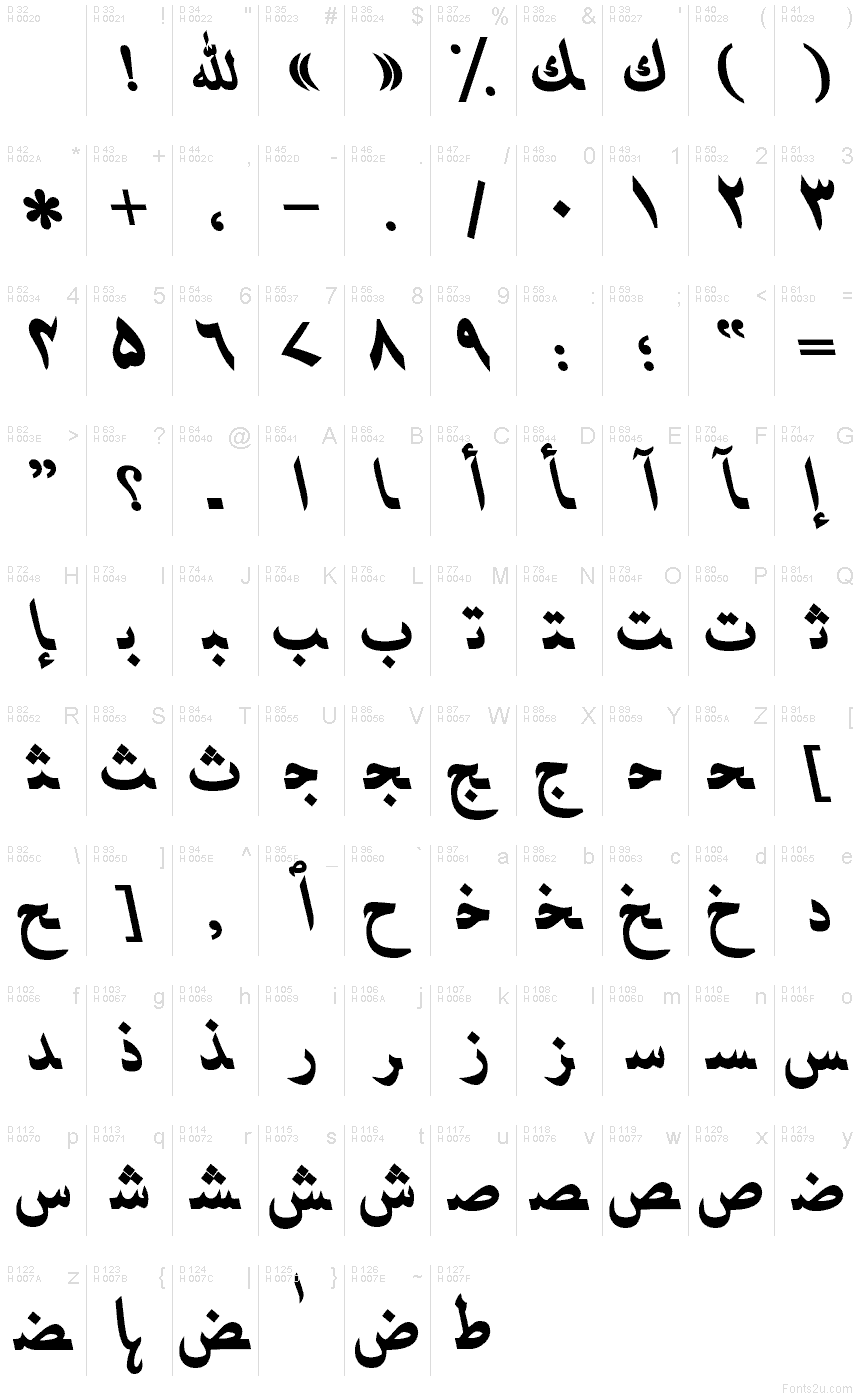
UrduNaskhSSK BoldItalic
UrduNaskhSSK BoldItalic font is a free Naskh Arabic-styled display font. Its letters are simple, gracefully written by hand, and feature no curls or other complex child elements at their tips. Instead, only the main broad strokes of a letter are presented in a black condensed form with simple fills to clarify the inscriptions.
Such straightness in letter presentation makes this magnificent set of characters preferential for Arabic branding projects with legibility requirements as top priority. Other possible applications that can gain from this free typeface involve logos and packaging, web designs, social media posts, print materials like books and magazines after all.